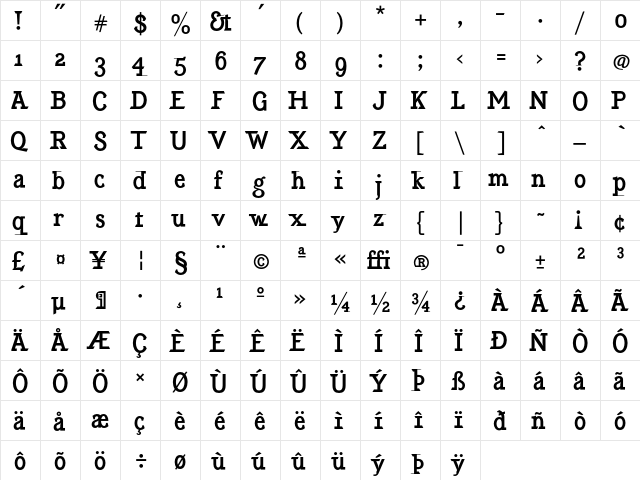
EquipoizeSerif Bold
Design Context for EquipoizeSerif Typeface
EquipoizeSerif brings classic typographic sensibility to the table — its serifs and measured letterforms reflect centuries of print heritage. Its bold stroke weight gives it real presence on the page.
Pro Tip: Use EquipoizeSerif for editorial body copy and considered headline work. Pair with a neutral sans for UI elements or captions to create a classic hierarchy.